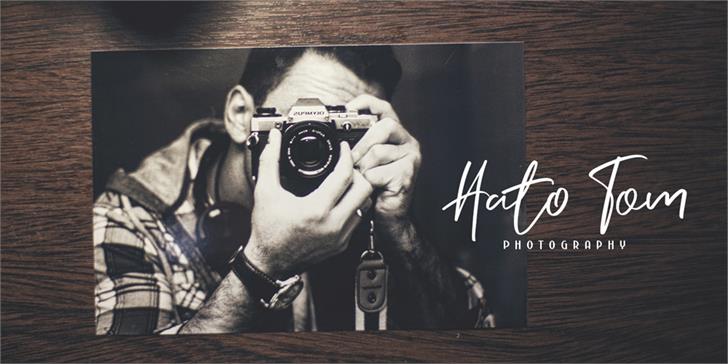
Nermola Script Font
Continue to be a beautiful scripcy font. Introducing Nermola Font! Nermola designed and shared by alit design. NERMOLA Scripcy font on sans serif has characteristic that are unique, elegant, formal and assertive. It is suitable for header or sub header of a text. On the uppercase it looks very unique and elegant.
NERMOLA Scripcy font is perfect you have as an additional reference and collections in your font library. Because it is suitable for the design of logotype design, the design has an elegant and romantic concept, and for the design of lettering quote.